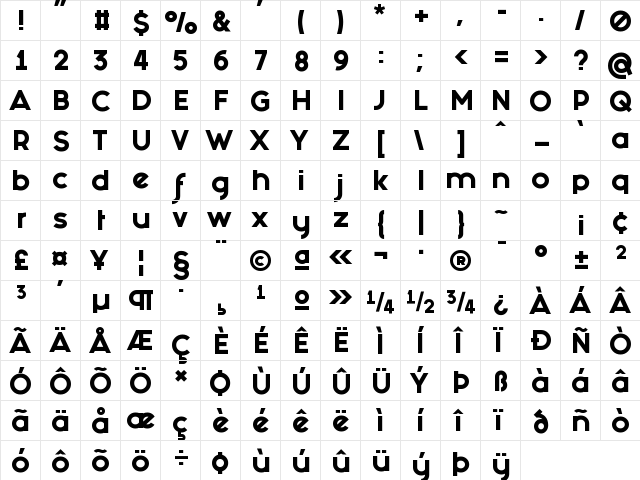
Fashion Fetish Heavy Regular
Design Context for Fashion Fetish Heavy Typeface
Fashion Fetish Heavy is a composed and adaptable typeface that performs quietly and consistently across a wide range of design contexts.
Pro Tip: Use Fashion Fetish Heavy in both headline and body roles to test its range before committing to a single application.